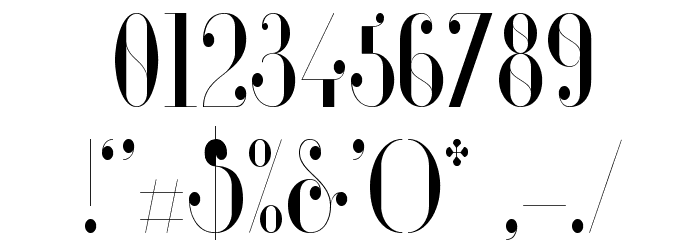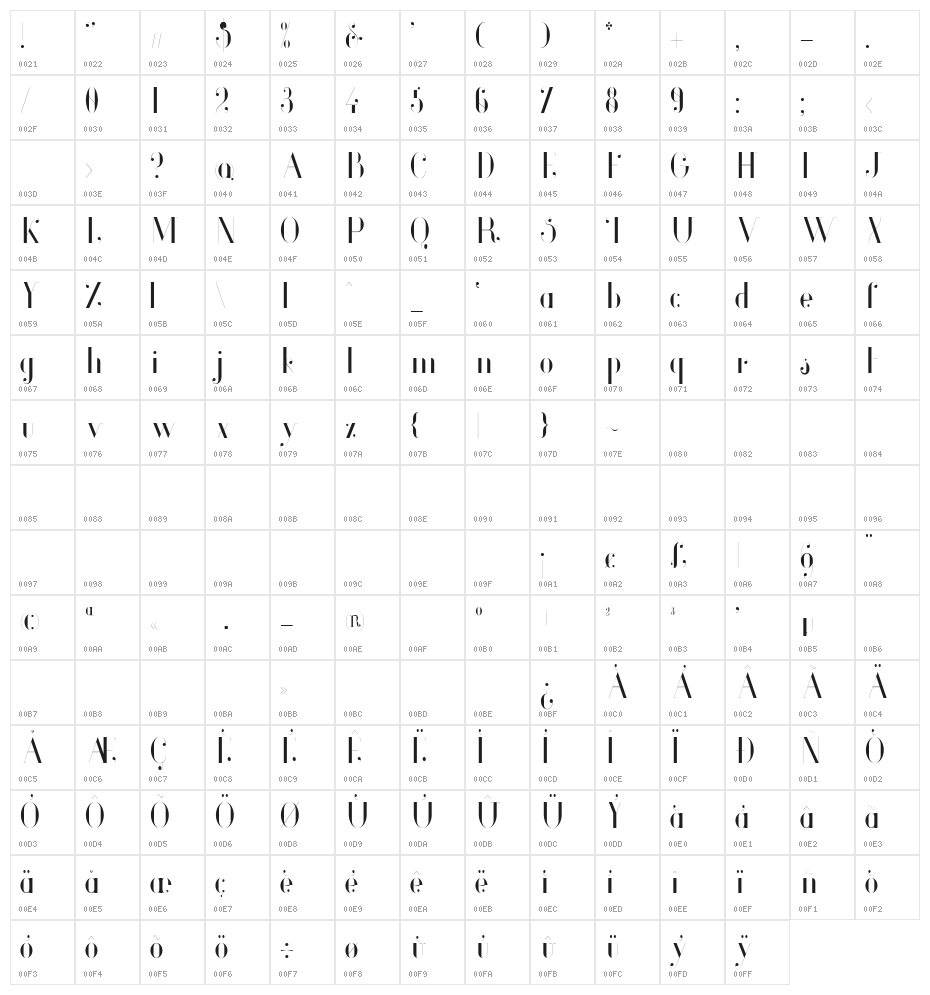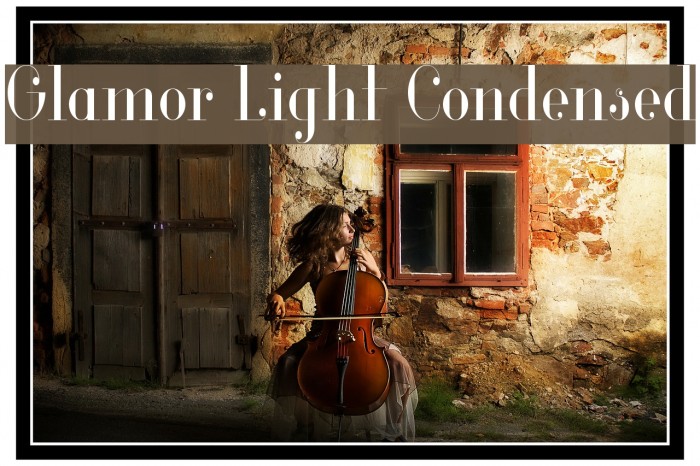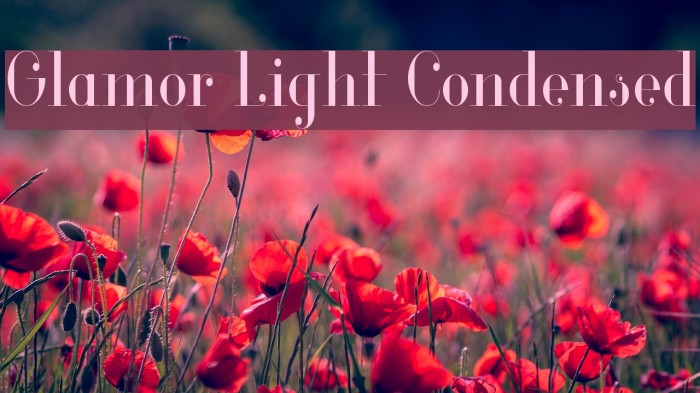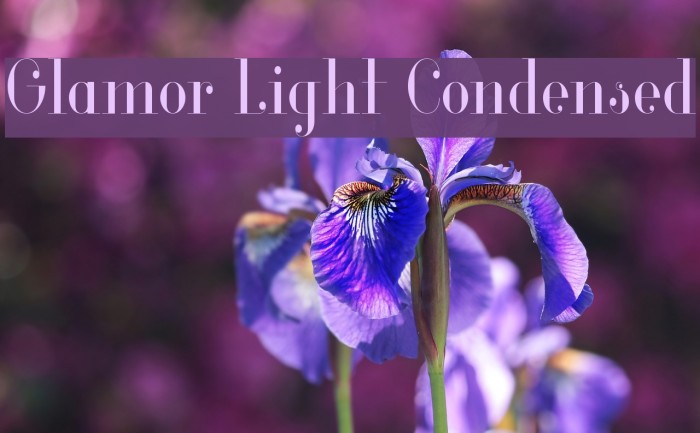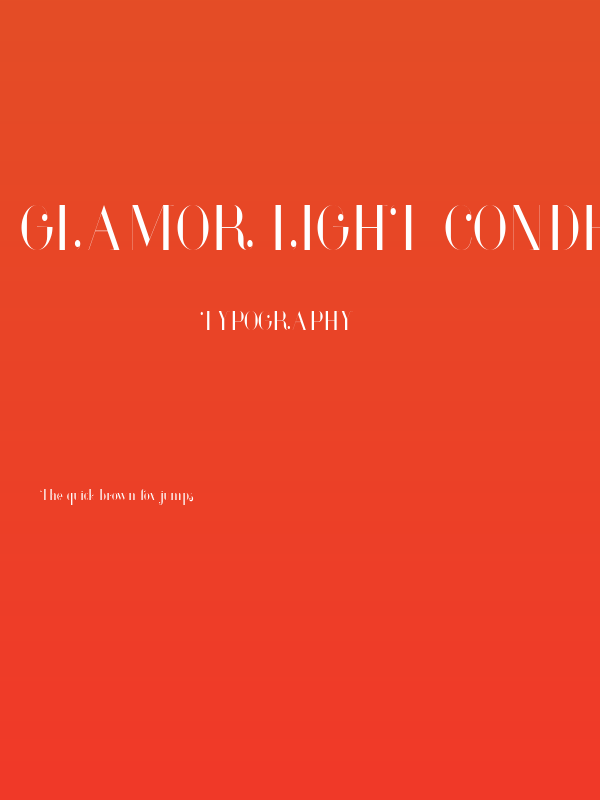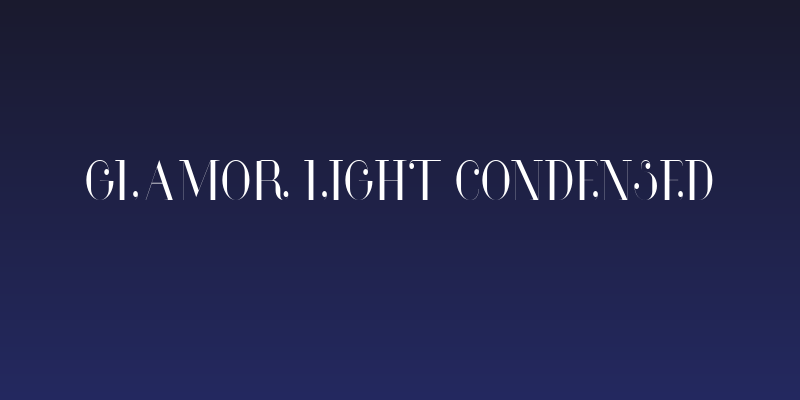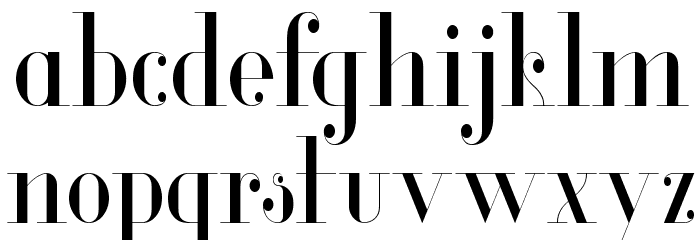
Glamor Light Condensed Font
Glamor Light Condensed Description
This font exhibits a sophisticated and elegant style, characterized by its thin, elongated letterforms and high contrast between thick and thin strokes. The design is modern yet timeless, featuring a condensed width that adds a sleek and refined appearance. The uppercase letters are particularly striking, with their tall, narrow shapes and distinctive serifs that add a touch of flair. The lowercase letters maintain the same elegance, with a consistent stroke weight that complements the overall design. Numbers and special characters are crafted with the same attention to detail, ensuring a cohesive look across all elements. This font's unique style makes it suitable for a variety of design applications.